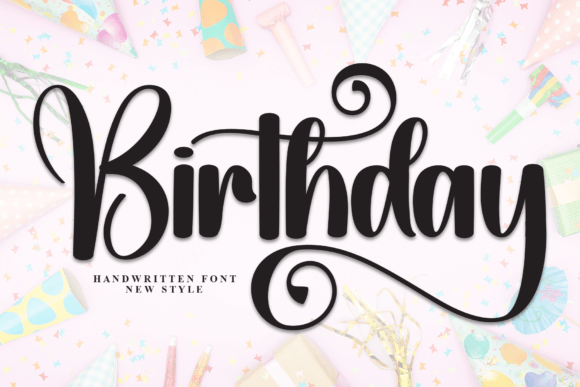
The Birth of a Celebration: Discovering the Joy of Birthday Font
I still remember the time I was working on a birthday project for a client’s little one. I had all the design elements ready – the colors, the graphics, the layout – but something was missing. It wasn’t until I stumbled upon the perfect font, Birthday Font, that the entire design came together. This bold, handwritten font added a playful touch that made the project truly special. If you’re a designer, crafter, or creative hobbyist looking for a font that can bring a festive vibe to your work, you’re in the right place!
I’ve had the chance to work with Birthday Font on several projects, and here’s what I think:
- ✨ It’s incredibly fun and lively, making it perfect for birthday cards, invitations, and decorations.
- ✅ The thick letters give it a personal and friendly feel that’s hard to achieve with digital fonts.
- ✅ It’s easy to read, even in smaller sizes, which is a huge plus for designs that need to be versatile.
- ⚠️ It can be a bit overpowering if not paired with the right design elements. Make sure to balance it with some clean lines or simple graphics.
- 🤔 Some letters (like the lowercase “q” and “p”) can be a bit tricky to use in certain contexts. Just be mindful of the words you’re using!
The Story Behind Birthday Font
Birthday Font was created with the intention of capturing the joy and excitement of celebrating a special day. Its designer wanted to create a font that felt personal, fun, and festive – something that would make any birthday message feel extra special.
| Font Name | Birthday Font |
| What makes Birthday Font unique? | Its bold, handwritten style and thick letters give it a personal and friendly feel. |
| Is Birthday Font suitable for digital use? | Yes, Birthday Font works well for both print and digital designs, including social media graphics and invitations. |
| Can I use Birthday Font for non-birthday celebrations? | Absolutely! While it’s designed for birthdays, Birthday Font can add a festive touch to any celebration or event. |